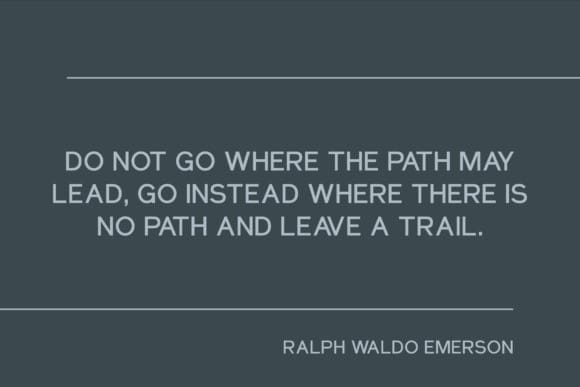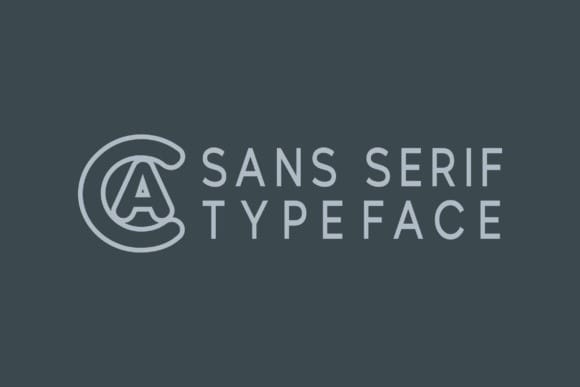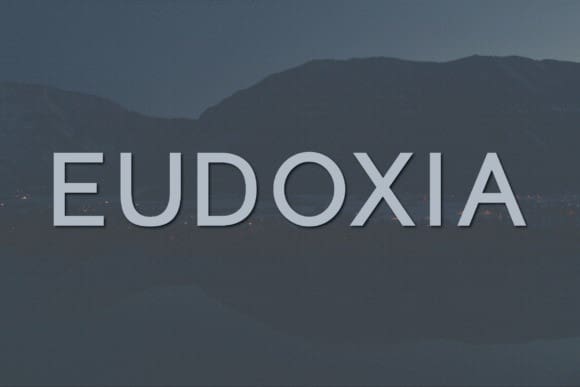
Eudoxia Font
Eudoxia Font, an elegantly modern sans serif font that embodies sophistication. This style boasts an inclusive set of upper-case characters, digits from 0 to 9, and a myriad of punctuation and symbols for comprehensive typesetting. Eudoxia thrives on versatility, seamlessly adapting to various aesthetics from enigmatic logos to whimsical wedding invitations. It effortlessly amplifies the allure of compelling quotes and intriguing advertisements, while bringing an elevated chicness to print media and magazines. Immerse yourself in Eudoxia’s versatility and make your statements resonate with class.